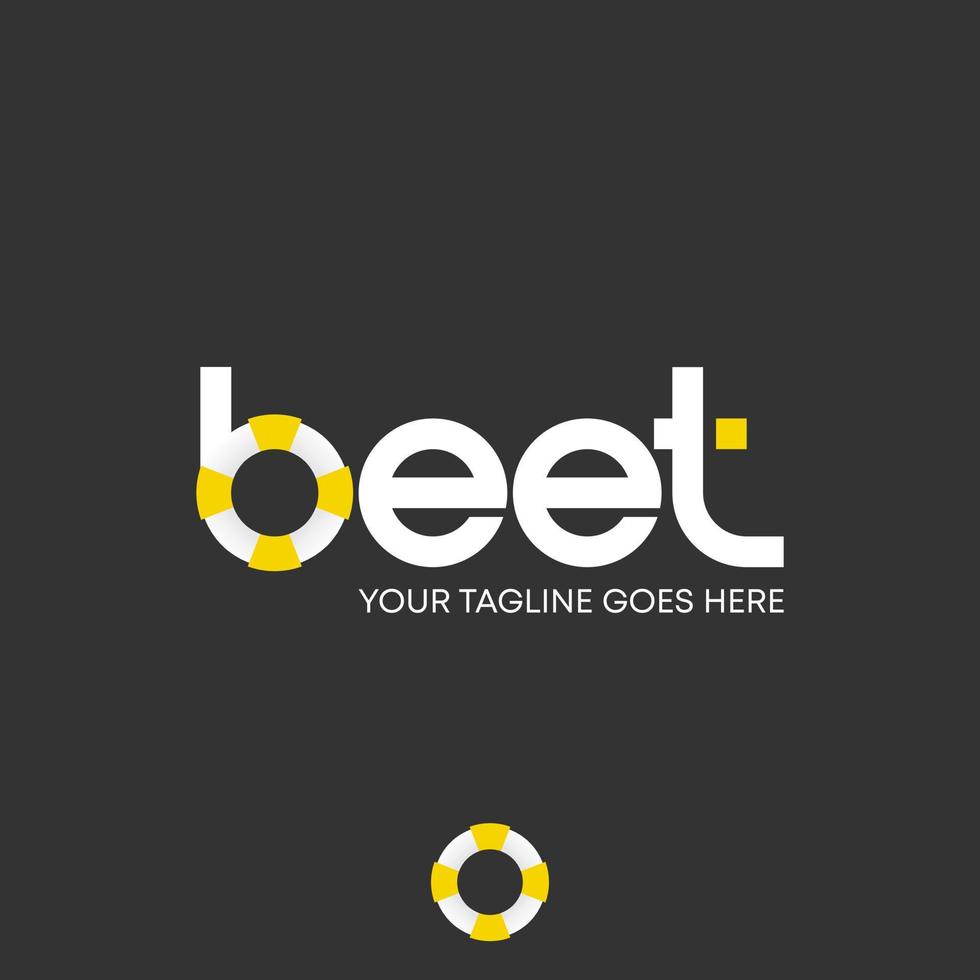
Letter or writing BEET sans serif font with coin gambling image graphic icon logo design abstract concept vector stock. Can be used as a symbol related to initial or game Pro Vector